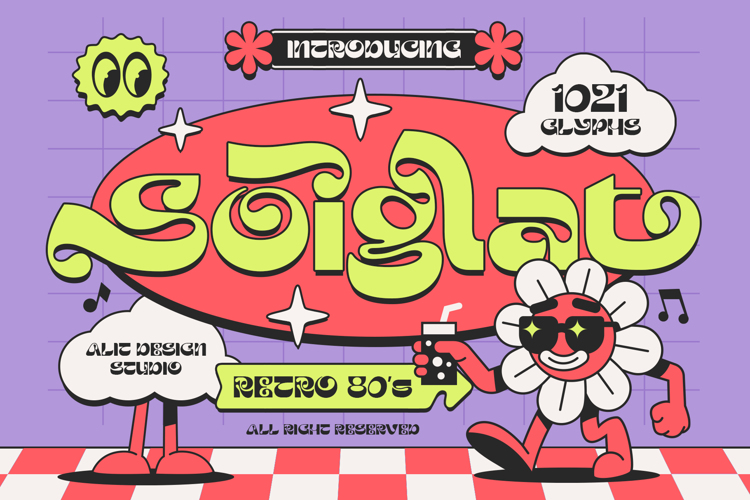
Soiglat Font
Introducing SOIGLAT! ✌️🌸
Ready to melt some minds? 🫠 Dive into the 80s with our newest release: Soiglat Typeface. It’s bubbly, it’s liquid, and it’s packed with over 1000+ glyphs to help you create custom typography instantly.
✨ Perfect for: Logos, Posters, Merch, and Retro Branding. ✨ Features: 8 Stylistic Sets for endless combinations.